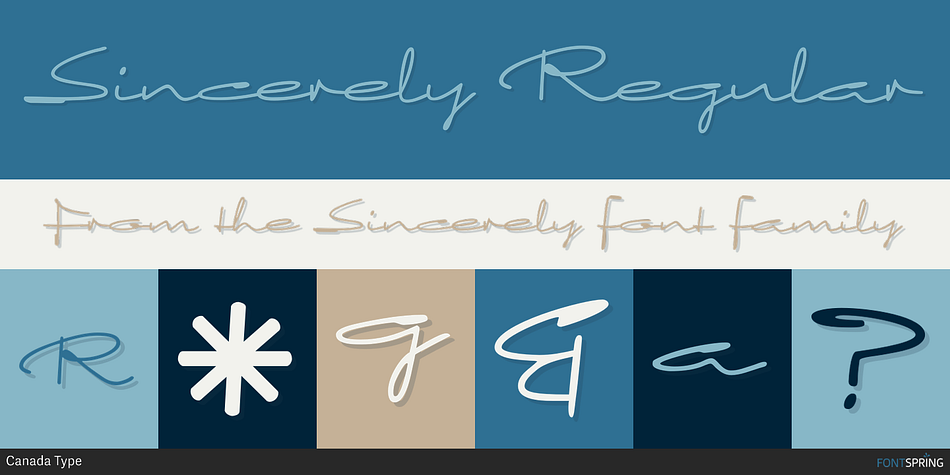
Sincerely is a script font published by Canada Type.
Wether with pen on paper, or in digital, realistically connecting vertical handwriting is never an easy task to accomplish. After working with many handwriting fonts, and after intently dissecting so many different handwritings, one tends to expect such things to be quirky, disconnected, and almost never upright. In fact, in spite of vertical handwriting’s academically-sung virtues of rationality, efficiency, clarity and logic, very few people manage to deviate from the natural slant when writing. Even fewer manage to make the vertical handwriting connect and keep its natural flow. Calligraphy and upright cursive aside, it is almost impossible to make a vertical letters connect and maintain a real handwriting appearance. This is where the genius of this design comes in to bridge the gap between upright handwriting and calligraphy.
Sincerely is based on one of the most fascinating handwriting designs to ever come out of Germany: Karlgeorg Hoefer’s 1968 Elegance for the Ludwig & Mayer foundry. It is a handwriting with the full meaning of the word, yet it possesses the rare, very commanding and appealing trait of being both vertical and connected while managing to remain realistic. It is the ultimate branding iron of handwriting fonts. When set and printed, Sincerely simply cannot be ignored.
Ideal for humanity-asserting poster designs, lettering of short wording with plenty of space, poetry, notes, greeting cards, craft literature, book covers, history-related designs, and a whole range of other applications.